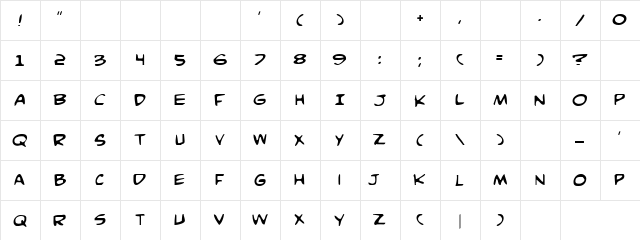
Rambo A Regular
Design Context for Rambo A Typeface
Rambo A is a composed and adaptable typeface that performs quietly and consistently across a wide range of design contexts.